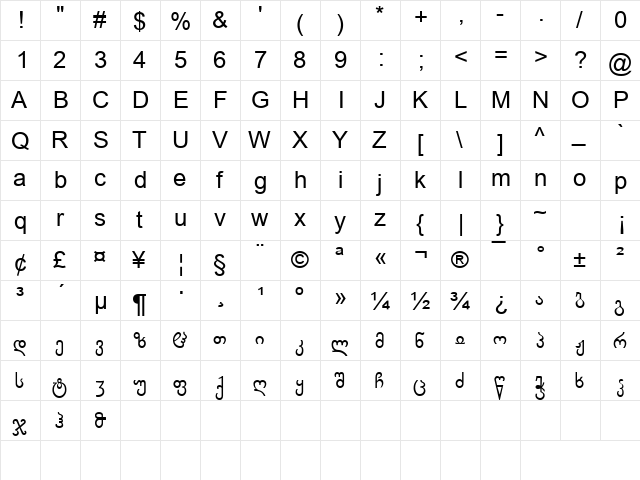
Geo_Arial Regular
Design Context for Geo_Arial Typeface
Geo_Arial offers clean, dependable letterforms without strong stylistic allegiance, making it a practical choice for designers who need flexibility.